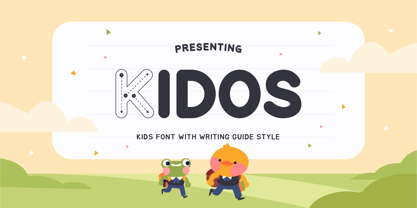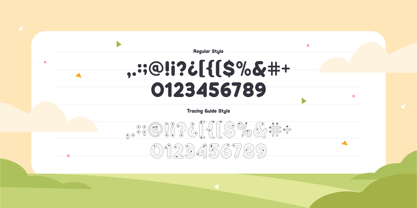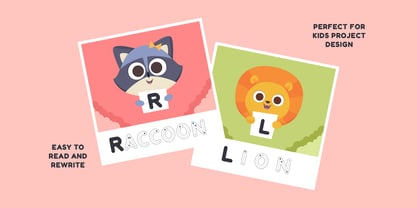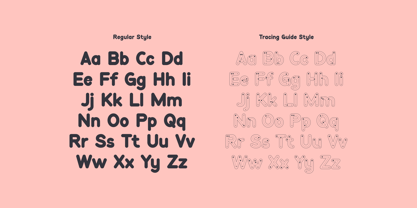
Kidos
by Imoodev
The Kidos Font Family was designed by Aulia Savira Putri and published by Imoodev. Kidos contains 2 styles and family package options. More about this family
Introducing 'KIDOS' is a kids font with tracing guide style. KIDOS showcases two styles of a children's font a 'Regular' and a 'Tracing Guide'.
The Regular style is playful and friendly, designed for easy readability with its consistent stroke weight and rounded forms, making it ideal for children learning to read.
The Tracing Guide style features the same characters but includes dotted lines and arrows to teaching children the correct formation of letters, promoting motor skills and handwriting development.
This font is excellent for teaching young learners how to write the alphabet themselves. Teachers and parents can use this font in educational materials, worksheets, and activities to make the alphabet learning process more enjoyable and effective.
It is perfect for headings, flyer, greeting cards, product packaging, children's book, printed quotes, kids project design, poster, educational design, etc.
Designers: Aulia Savira Putri
Foundry: Imoodev